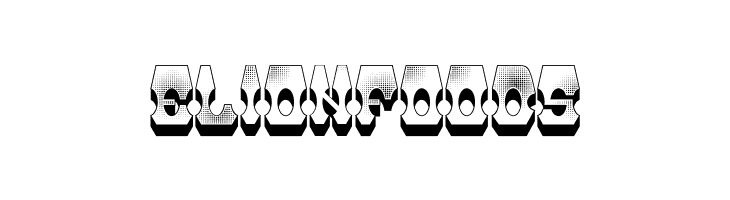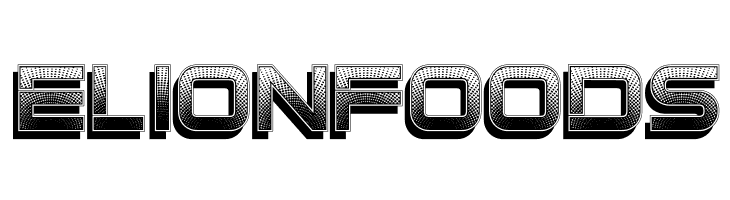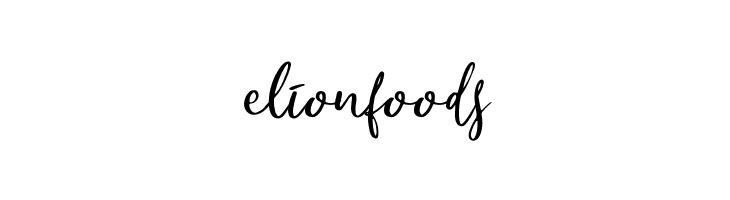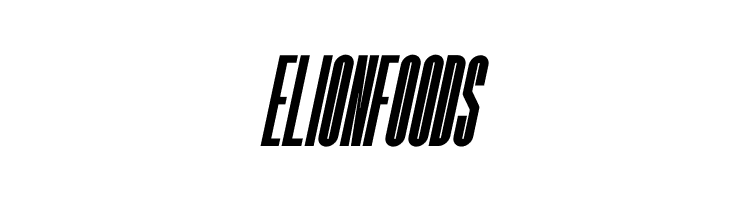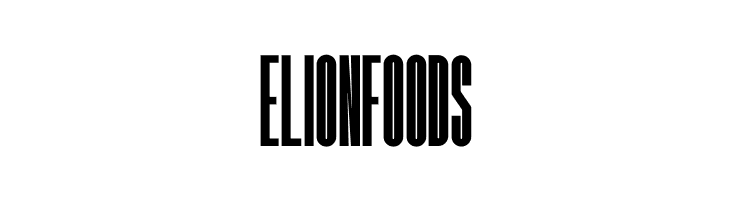
A bold, 3D geometric font with halftone texture and shadow effects.
A bold, geometric font with a 3D effect and textured interior, perfect for striking displays.
A lively and expressive handwritten font with fluid, dynamic strokes.
A bold, italicized font with tight spacing and high contrast, perfect for dynamic headlines.
A bold, condensed font with a modern and impactful style.
A modern sans-serif font with clean lines and balanced proportions.
A bold, playful script font with a handwritten feel and rounded edges.
A tall, narrow, and modern font with an elegant style.
A bold, brush-style font with a dynamic and artistic appearance.
An ornate, decorative font with vintage flair and intricate details.